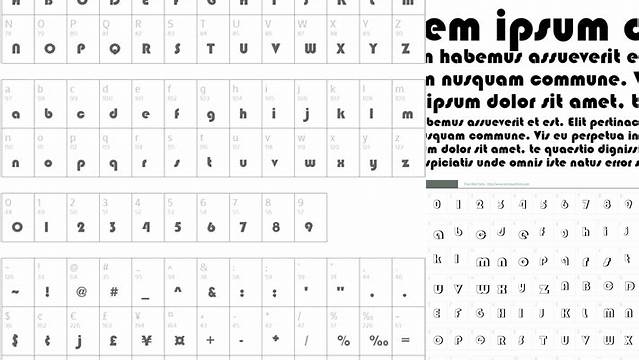
Hey guys! Are you looking to add a retro, groovy vibe to your design projects? Then you've probably heard of Blippo, the iconic typeface that screams 1970s cool. In this comprehensive guide, we'll dive deep into everything Blippo, from its history and characteristics to where you can find a free download (or a paid version if that's your jam) and how to use it effectively. Get ready to unleash your inner retro designer!
1. What is Blippo Font?
Let's start with the basics. What exactly is Blippo? Blippo, at its core, is a typeface designed by Joe Taylor in 1969 for FotoStar, and later released by Lubalin Graphotype. It's characterized by its rounded, bold letterforms and a somewhat quirky, playful appearance. The Blippo font instantly evokes a sense of nostalgia for the 70s, making it perfect for projects that aim for that retro aesthetic. Think disco balls, lava lamps, and psychedelic posters – that's the vibe we're talking about! Its unique design makes it a standout choice for headlines, logos, and display text. However, due to its distinctive character, it's often best used sparingly to avoid overwhelming your overall design. Understanding its origins and key features will help you utilize this font in the best way possible.
2. The History and Evolution of Blippo Font
To truly appreciate Blippo, let's take a little trip down memory lane. The Blippo font emerged during a fascinating period in design history, the late 1960s and early 1970s. This era was marked by experimentation, bold statements, and a departure from traditional typography. Joe Taylor, the creative mind behind Blippo, perfectly captured this spirit with his design. Originally, the Blippo font was part of a larger trend of supergraphic typography, which emphasized large, impactful letterforms. Over the years, Blippo has seen various adaptations and interpretations, but its core essence – that groovy, retro feel – has remained consistent. It's fascinating to see how a font born from a specific cultural moment continues to resonate with designers today. The story of Blippo is a testament to the enduring power of good design.
3. Key Characteristics and Features of Blippo
So, what makes Blippo, well, Blippo? There are several key characteristics that define this iconic typeface. First and foremost, it's the rounded letterforms. These curves give Blippo a friendly, approachable, and almost cartoonish feel. The boldness of the letters is another crucial element. Blippo isn't shy; it commands attention! This makes it ideal for headlines and titles where you want to make a statement. The letterforms also have a distinct vertical stress, meaning the thickest parts of the strokes are on the vertical lines, adding to its visual weight. Finally, there's a certain playfulness to Blippo. It's not a serious, corporate font; it's fun and whimsical. Understanding these characteristics will help you determine if Blippo is the right fit for your project and how to use it most effectively. The Blippo font is more than just a typeface; it's a visual representation of a particular era.
5. Blippo Font Alternatives: Similar Typefaces
If you're having trouble finding a free download of Blippo, or if you simply want to explore other options, there are plenty of fantastic alternatives out there. Several typefaces capture a similar retro, rounded aesthetic. Fonts like Cooper Black, ITC Bauhaus, and Hobo are all excellent choices. These fonts share Blippo's bold, playful character and are readily available, both in free and commercial versions. Exploring these alternatives can help you expand your typographic palette and find the perfect font for your project. Sometimes, a slightly different typeface can give you the exact vibe you're looking for while still maintaining the overall aesthetic you desire. Don't be afraid to experiment and try out different options! The world of typography is vast and exciting.
6. Blippo Font in Web Design: Best Practices
So, you've got Blippo (or a similar font) and you're ready to use it on your website. Awesome! But before you go wild, let's talk about some best practices for using Blippo in web design. Remember, Blippo is a display font, meaning it's best suited for headlines, titles, and short bursts of text. Using it for large blocks of body text can make your website difficult to read. Think about using Blippo for your website's logo or for eye-catching headings that draw visitors in. Also, consider the loading time. If you're using a custom font like Blippo, make sure it's properly optimized for the web to avoid slowing down your site. Tools like Google Fonts can help with this. Finally, pay attention to contrast. Blippo's boldness needs to be balanced with a clear, legible background. Using a contrasting color can make your text pop. By following these tips, you can use Blippo to create a visually appealing and user-friendly website.
7. Blippo Font in Graphic Design: Applications and Examples
Blippo isn't just for websites; it's a fantastic choice for a wide range of graphic design projects. Think posters, flyers, logos, packaging – the possibilities are endless! Its retro vibe makes it particularly well-suited for designs that aim for a vintage or 70s aesthetic. Imagine a Blippo-inspired logo for a retro clothing store or a poster for a funk music concert. Blippo can also add a touch of fun and playfulness to branding materials. However, remember the importance of context. Blippo might not be the best choice for a serious, corporate brand. Consider the overall message you want to convey and whether Blippo's personality aligns with that message. Looking at examples of how Blippo has been used in other designs can provide valuable inspiration. There are countless ways to incorporate Blippo into your projects – let your creativity guide you!
8. Pairing Blippo Font with Other Typefaces
One of the keys to effective typography is pairing fonts well. Blippo, with its bold and distinctive personality, needs to be paired with a typeface that complements it without competing for attention. A good rule of thumb is to pair a display font like Blippo with a simpler, more legible sans-serif or serif font for body text. Think about fonts like Helvetica, Arial, or Open Sans for a clean and modern contrast. Alternatively, you could pair Blippo with a more classic serif font like Times New Roman or Garamond for a touch of elegance. The goal is to create a visual hierarchy that guides the reader's eye and makes your design easy to read. Experiment with different pairings to see what works best for your project. Font pairing is an art, but it's also a science. Understanding the principles of typographic contrast can help you create harmonious and effective designs.
9. Using Blippo for Logos and Branding
Blippo can be a fantastic choice for logos and branding, especially if you're aiming for a retro or playful feel. Its bold and distinctive letterforms make it memorable and instantly recognizable. Imagine a logo for a vintage shop, a record store, or a funky event – Blippo could be the perfect fit! However, it's essential to consider your target audience and brand identity. Is Blippo's personality aligned with your brand? If you're a serious, corporate brand, Blippo might not be the best choice. But if you're looking to convey a sense of fun, nostalgia, or creativity, Blippo can be a powerful asset. Consider using Blippo as part of a larger branding system, incorporating its unique characteristics into other elements like color palettes and imagery. A cohesive brand identity is key to success.
30. Blippo Font: A Timeless Classic for Modern Design
In conclusion, Blippo is more than just a font; it's a design icon. Its bold, rounded letterforms and retro vibe have made it a favorite among designers for decades. Whether you're working on a retro design project, creating a logo, or simply looking for a unique and eye-catching typeface, Blippo can be a fantastic choice. Remember to consider its characteristics, licensing, and best practices for use. And most importantly, have fun experimenting and exploring the creative possibilities that Blippo offers. This timeless classic continues to inspire designers today, proving that good design truly transcends time. So, go ahead and give Blippo a try – you might just fall in love with its groovy charm!